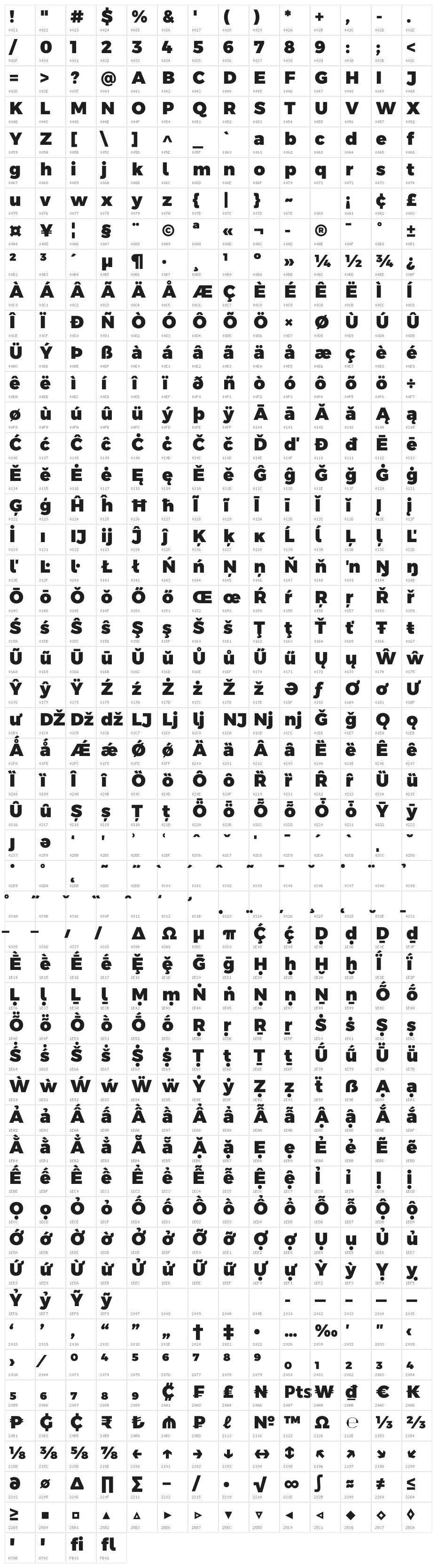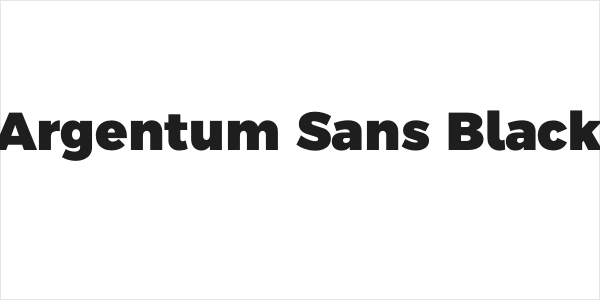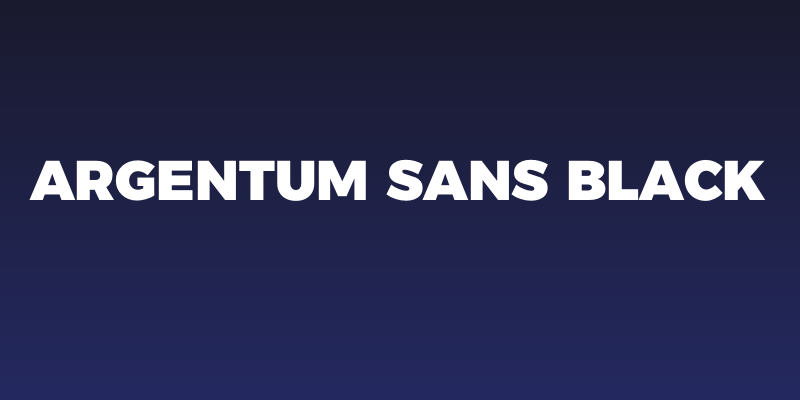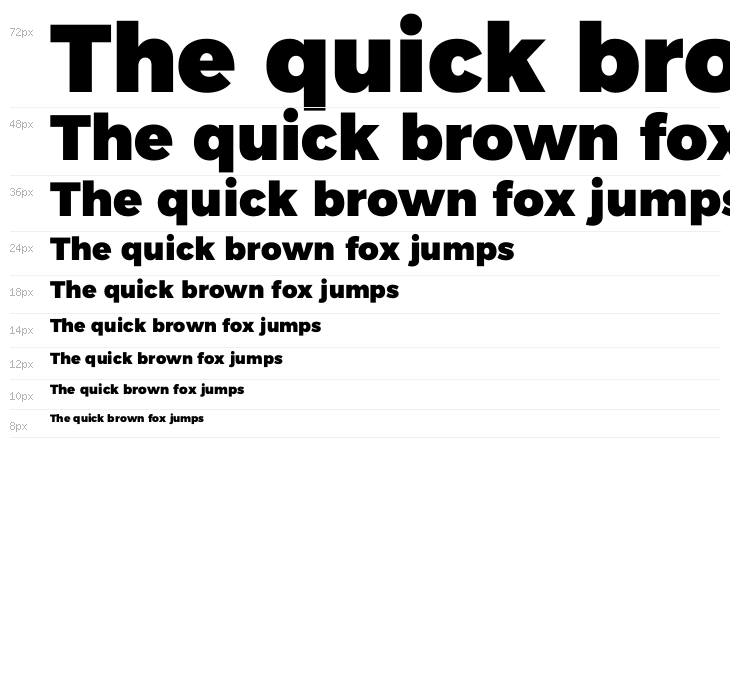
Argentum Sans Black Font
Argentum Sans Black Description
This font exhibits a bold and modern sans-serif style, characterized by its strong geometric shapes and clean lines. The uppercase and lowercase letters are well-proportioned, offering a sense of balance and uniformity. The numerals are clear and distinct, making them easily readable. Special characters are designed with the same boldness, ensuring consistency across all glyphs. The overall appearance is robust and impactful, suitable for making statements in design.